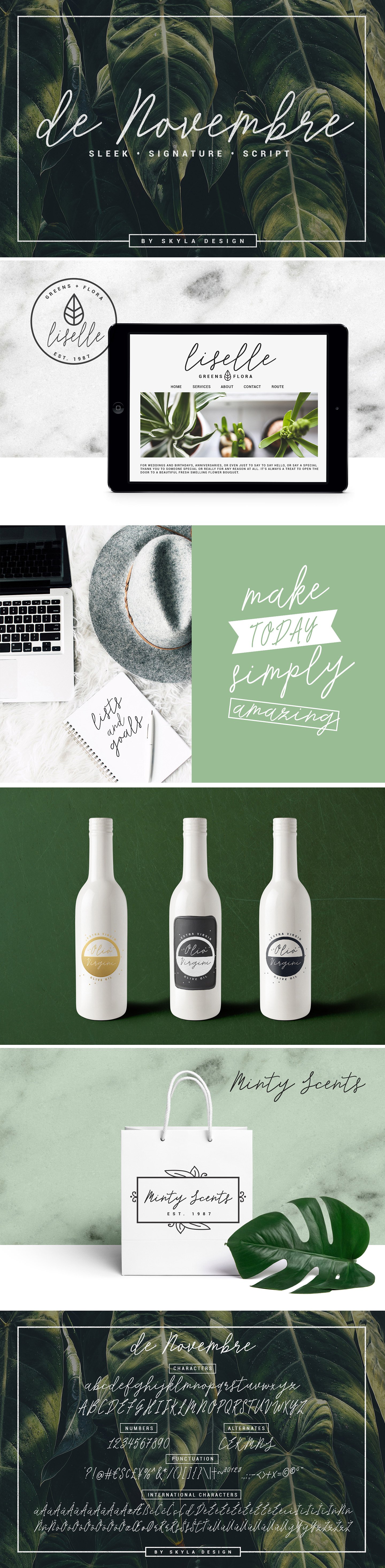
de Novembre Signature Font
De Novembre is a sleek, signature, script which will give instant class and style to your work. Use this font for branding, logo’s, signatures, invites, and all your other lovely projects.
| Classification: | Handwritten Fonts, Script Fonts |